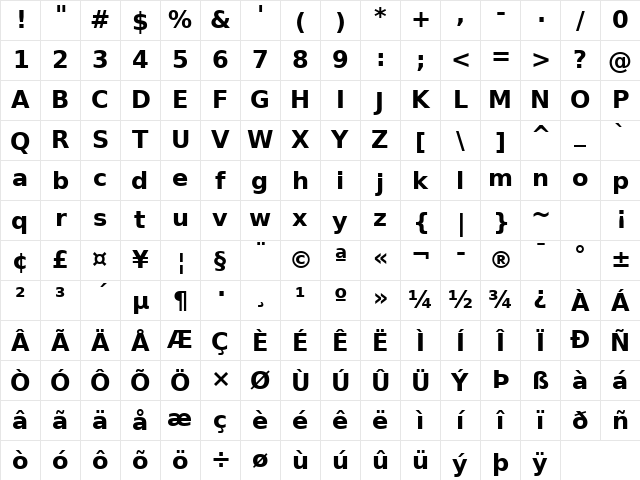
Complete ae_Ouhod Bold glyph index. Displaying only characters natively supported by ae_Ouhod Bold font.
ae_Ouhod is a composed and adaptable typeface that performs quietly and consistently across a wide range of design contexts. Its bold stroke weight gives it real presence on the page.